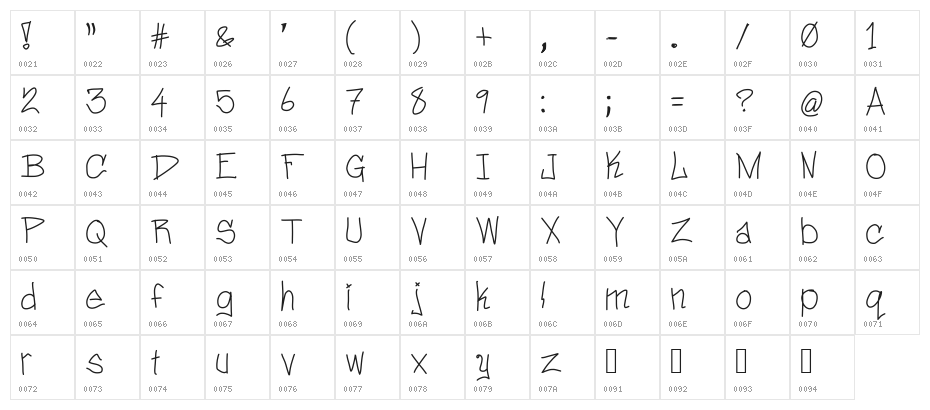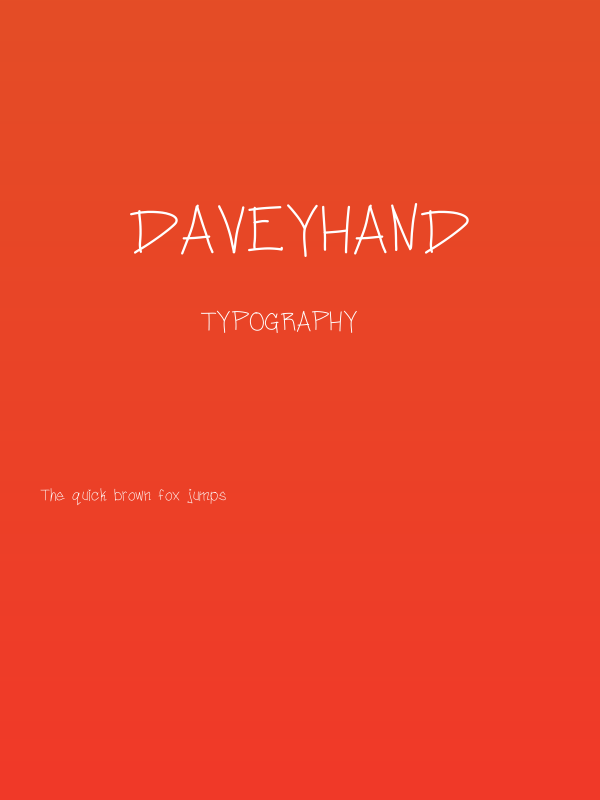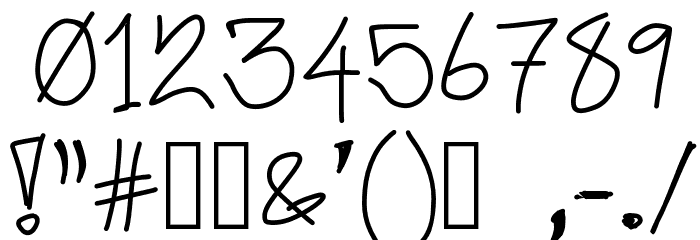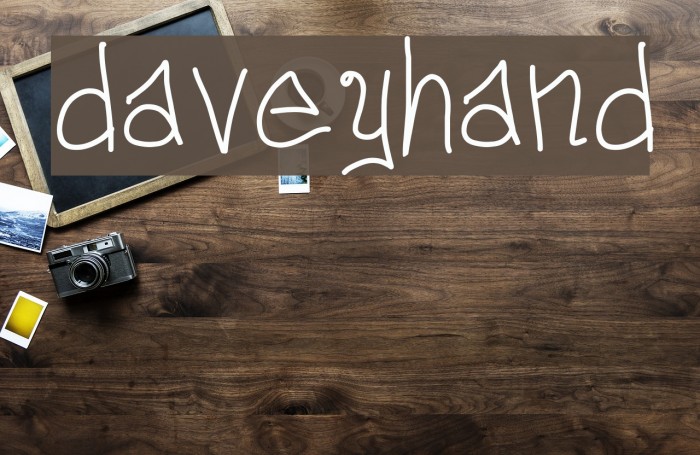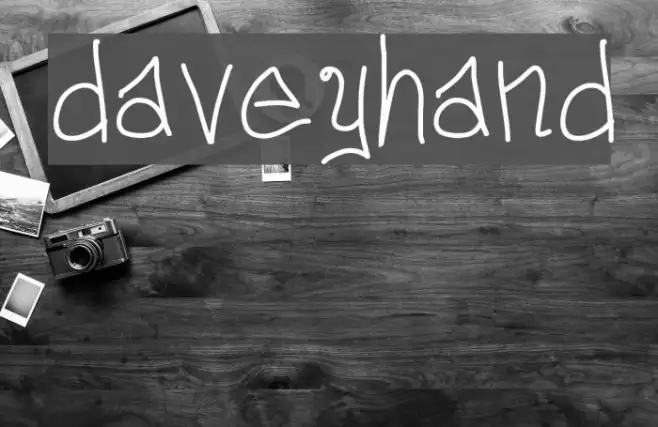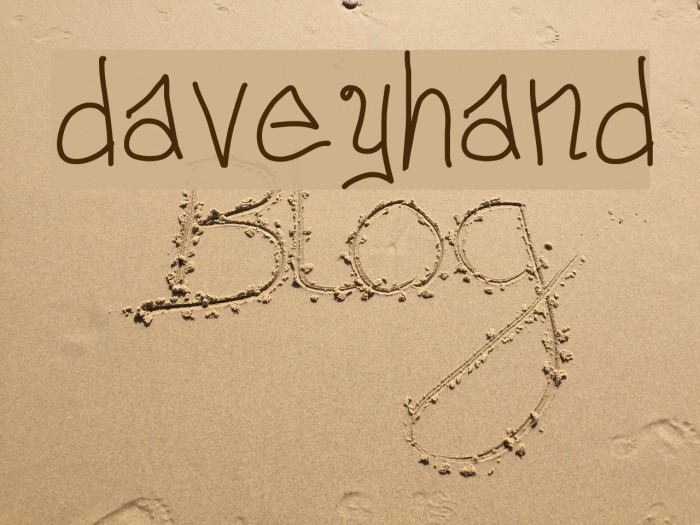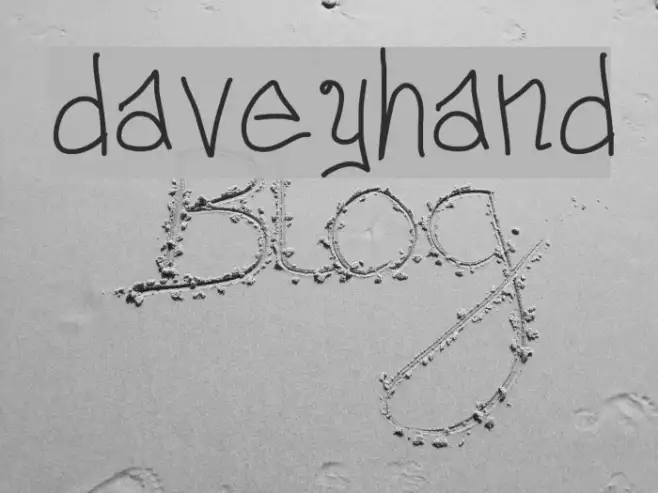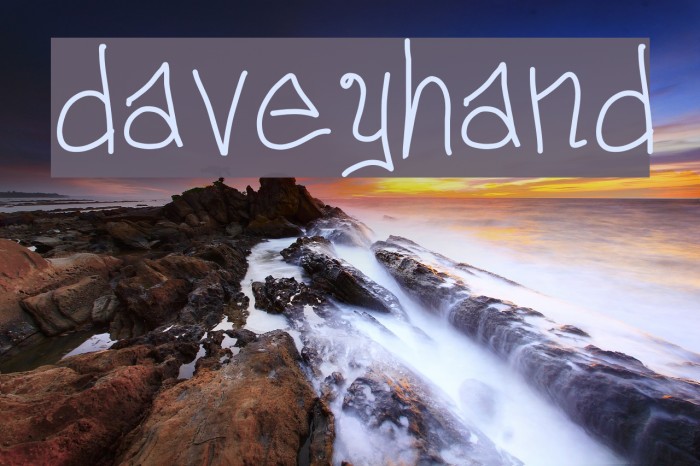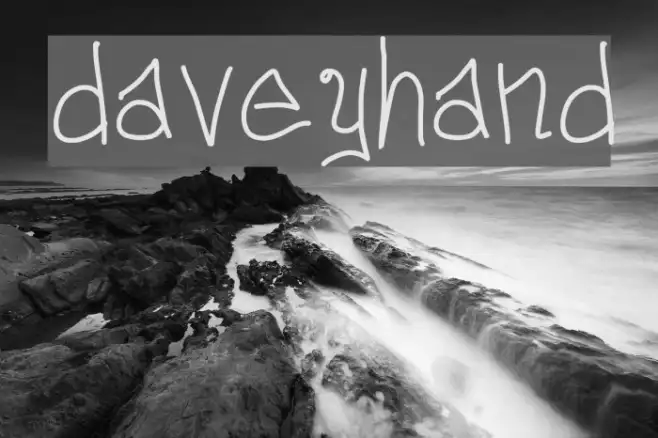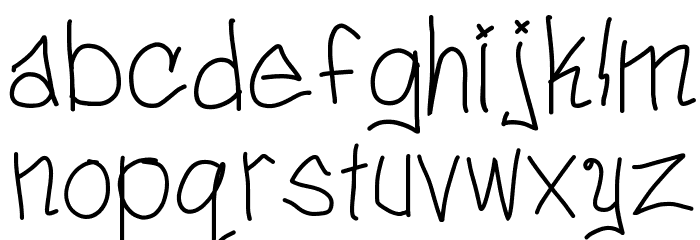
daveyhand Font
daveyhand Description
This font features a playful and casual handwritten style, characterized by its uneven strokes and slightly irregular letterforms. The uppercase and lowercase letters maintain a consistent flow, with a whimsical touch that adds personality to the text. The numbers and special characters follow the same informal aesthetic, making the font suitable for creative and informal projects. The strokes are moderately thick, providing good readability while retaining a hand-drawn feel. This font is ideal for projects that require a personal and approachable tone.